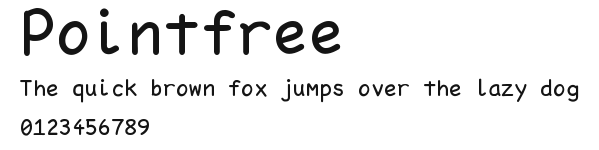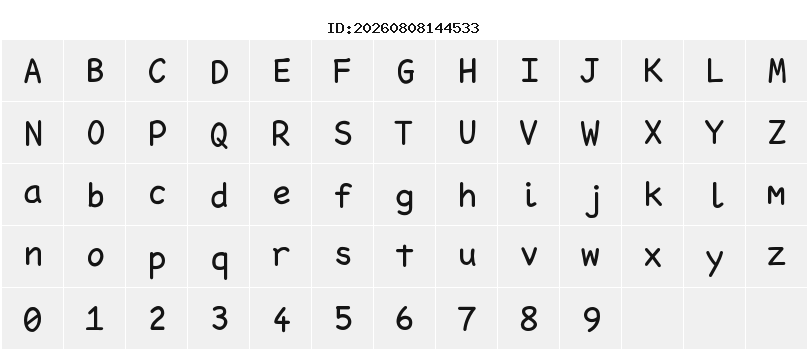
Pointfree Preview
About Pointfree.ttf
Pointfree.ttf is a modern, elegant sans-serif font designed for ultimate readability and visual harmony. Perfect for branding, headlines, web design, and print materials.